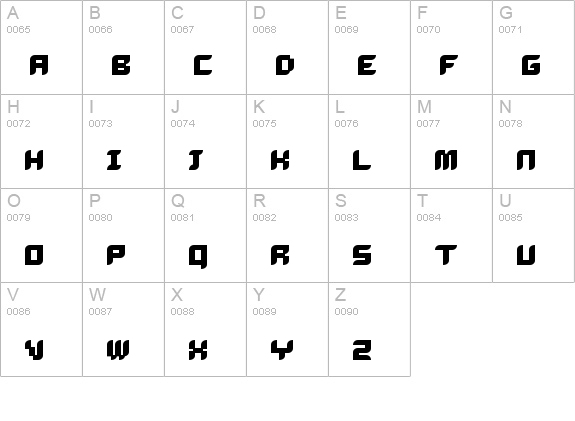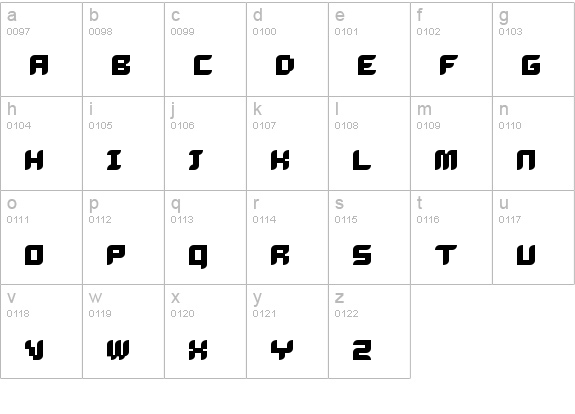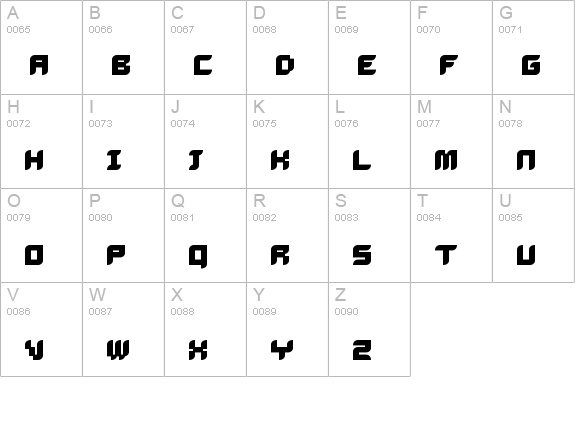
Dalila Bold is a strong, high-contrast variant in the Dalila typeface family \xE2\x80\x94 well suited to headlines, attention-grabbing titles, and strong calls-to-action.
Dalila Bold is a striking and contemporary font that exudes confidence and power. With its bold and strong letterforms, this typeface is perfect for making a statement and grabbing attention. Each character is meticulously crafted with clean lines and a sense of elegance, making Dalila Bold a versatile choice for a wide range of design projects. Whether you are creating eye-catching headlines, designing impactful logos, or enhancing your branding materials, Dalila Bold will ensure your message is delivered with maximum impact. Its commanding presence on the page will captivate your audience and leave a lasting impression. What makes Dalila Bold even more appealing is that it is available for free download at FontsMarket.com. This means that you can easily access this stunning font and use it in your projects without any cost. Embrace the freedom to express your creativity and elevate your designs with Dalila Bold. Downloading Dalila Bold from FontsMarket.com is quick and hassle-free. Simply visit the website, locate the font, and click the download button. Once downloaded, you can install it on your computer and start using it immediately in your favorite design software. Don't miss out on the opportunity to add Dalila Bold to your font collection. Its bold and dynamic nature will provide endless possibilities for your design endeavors. Download Dalila Bold for free today and unleash the power of this remarkable font.